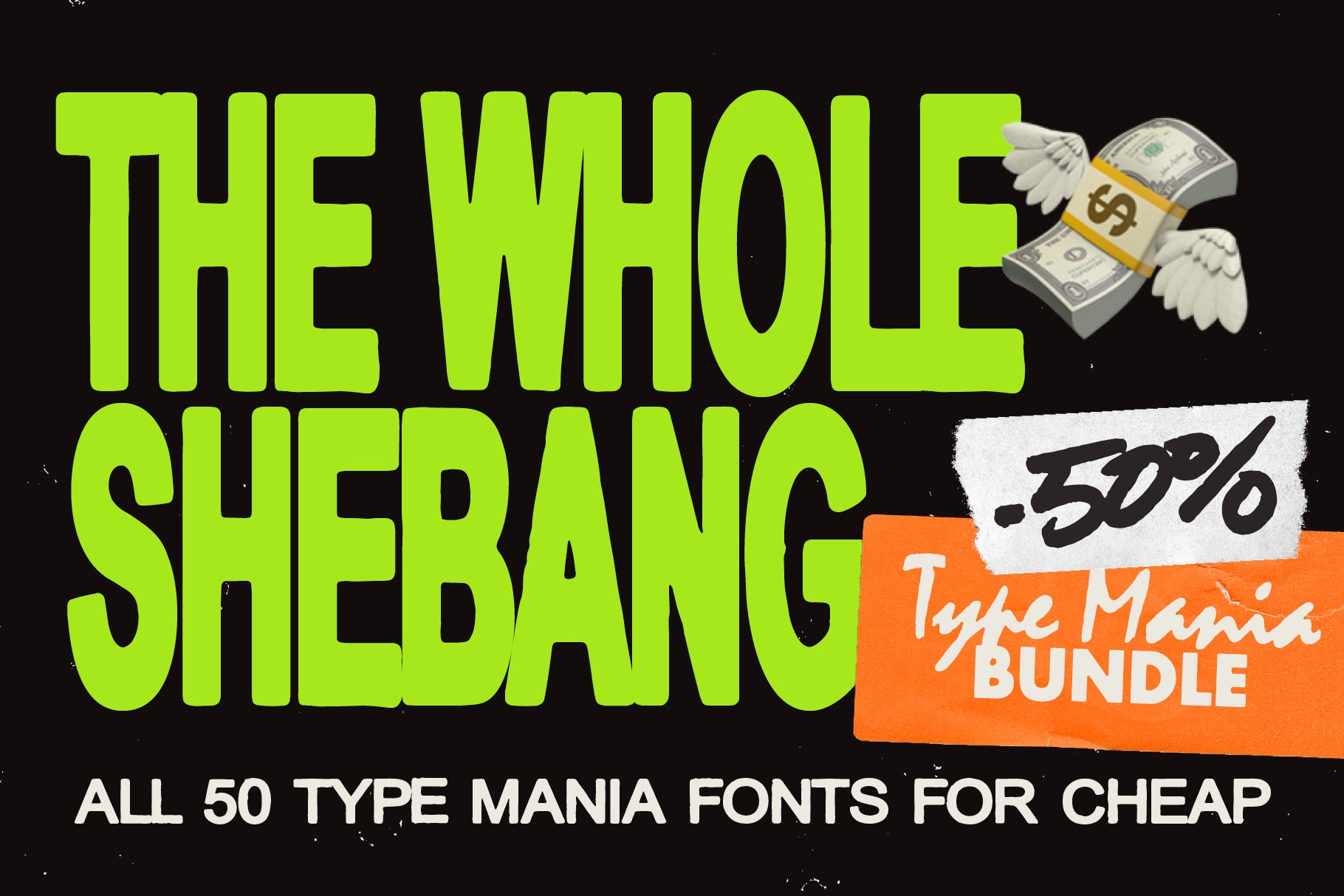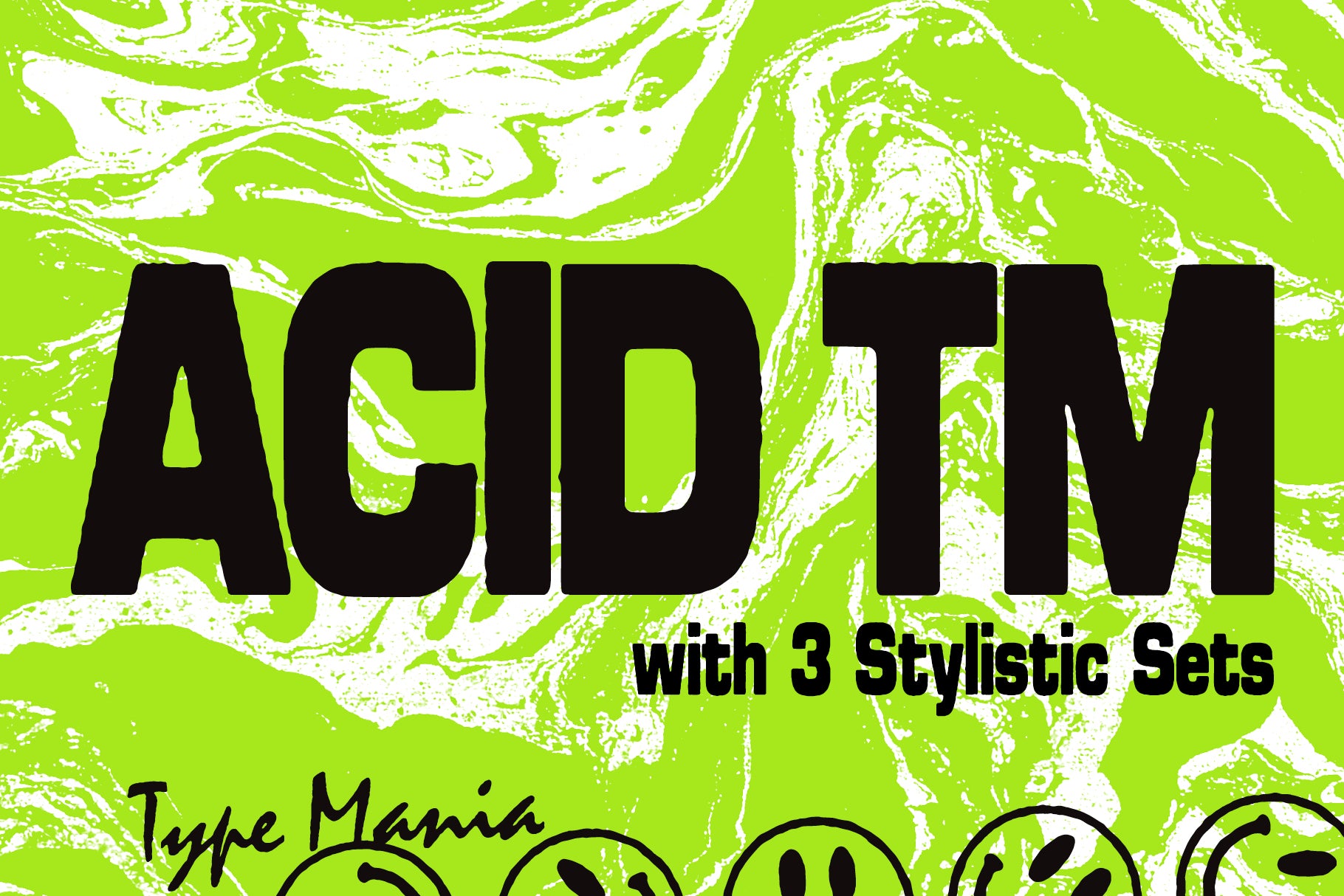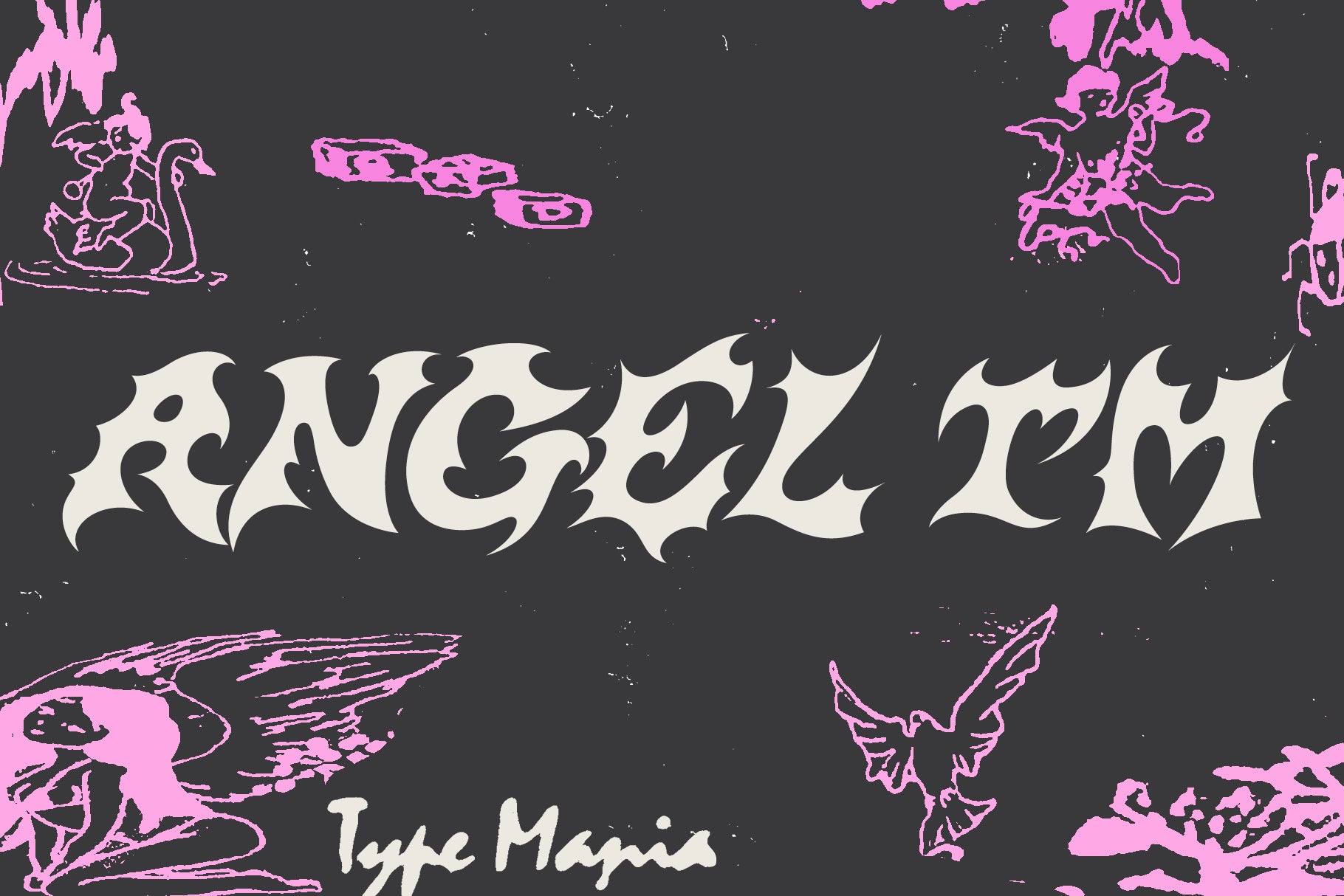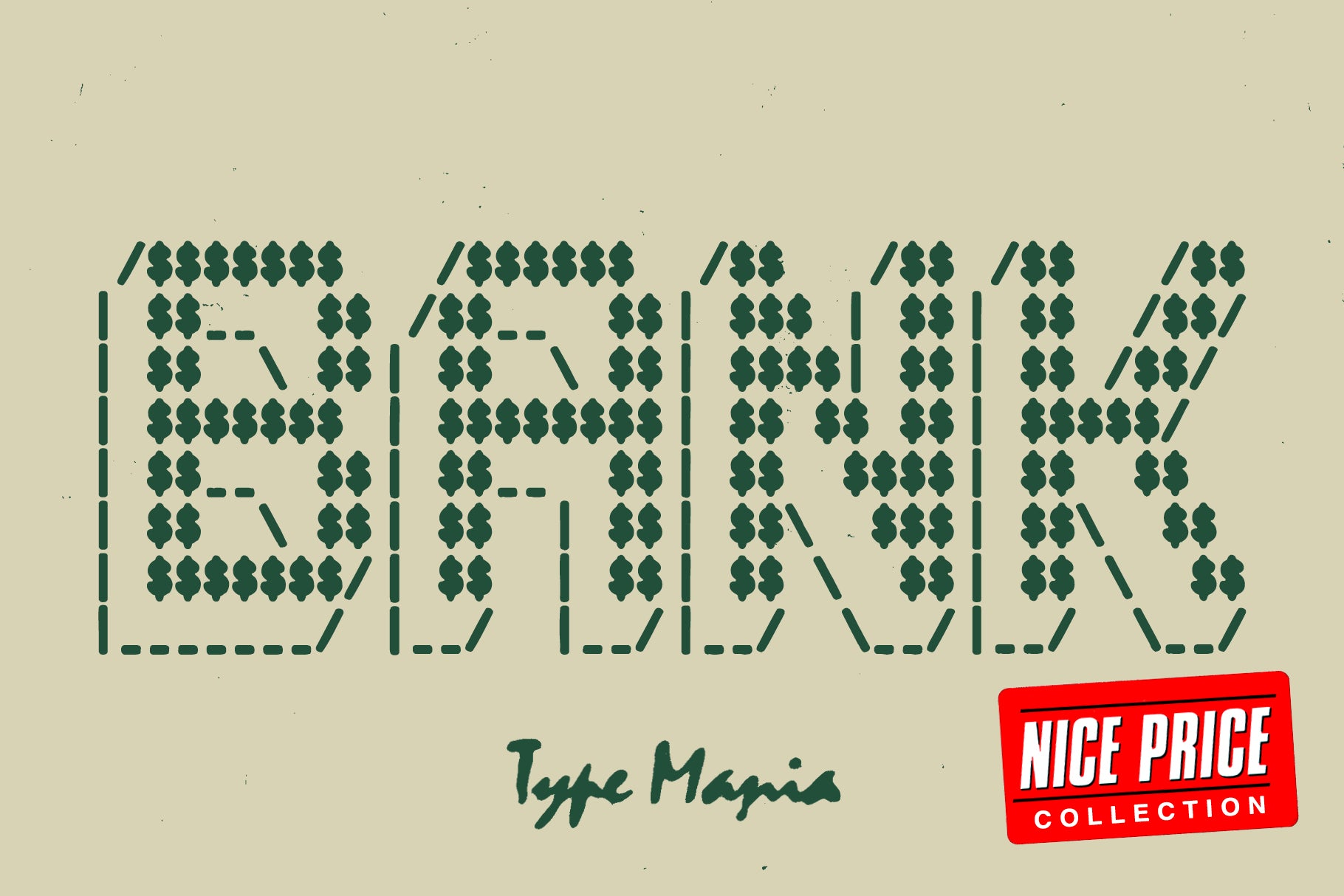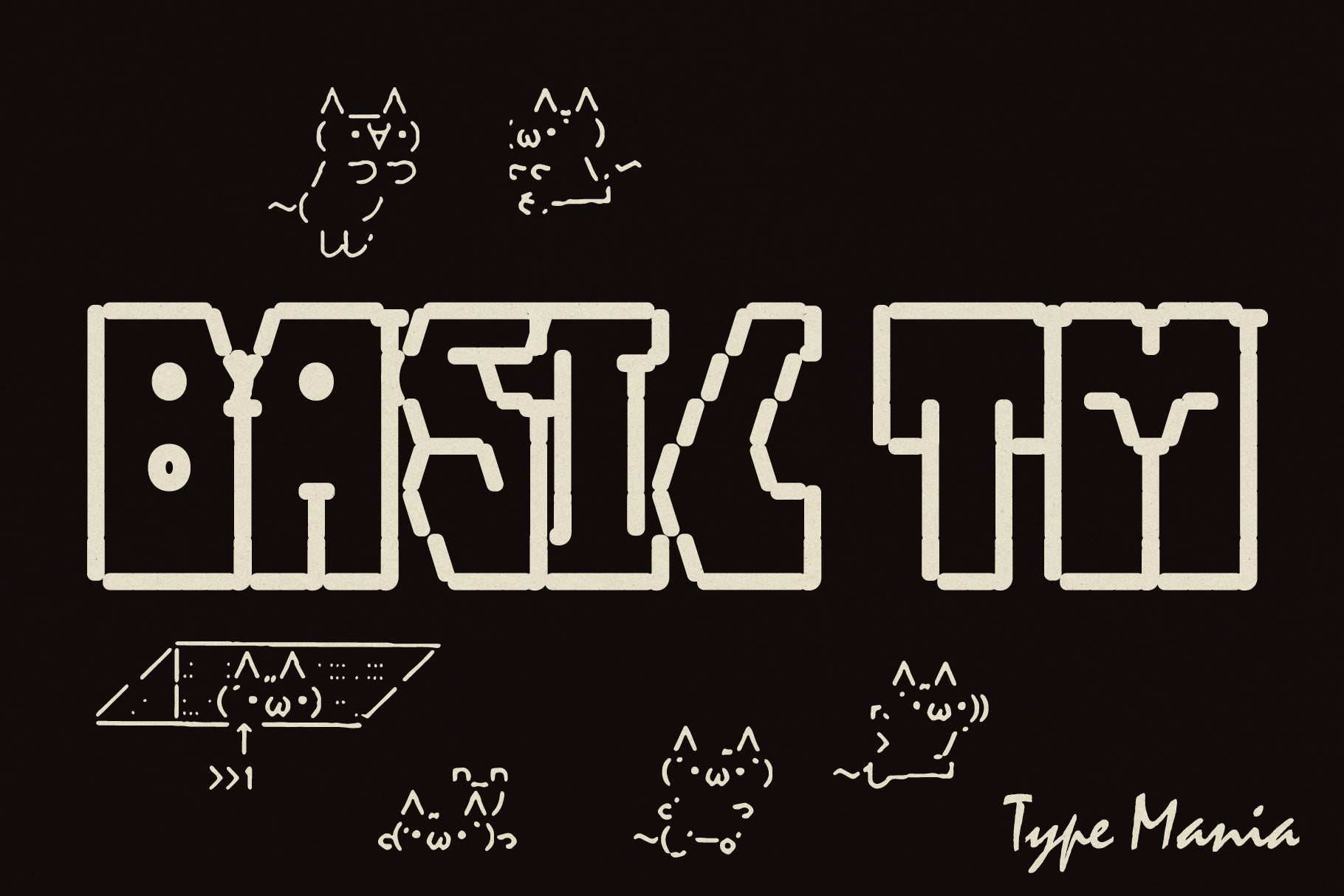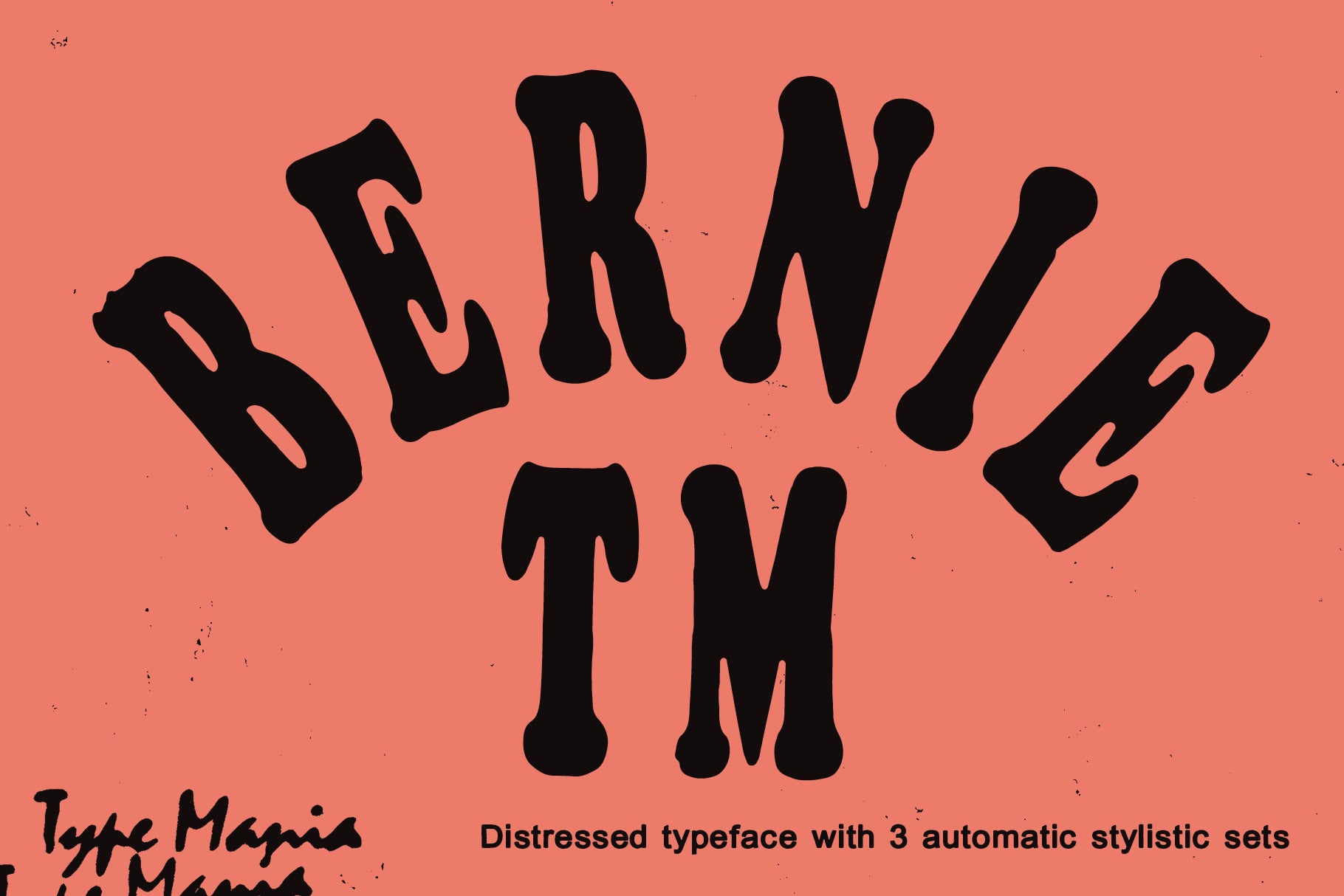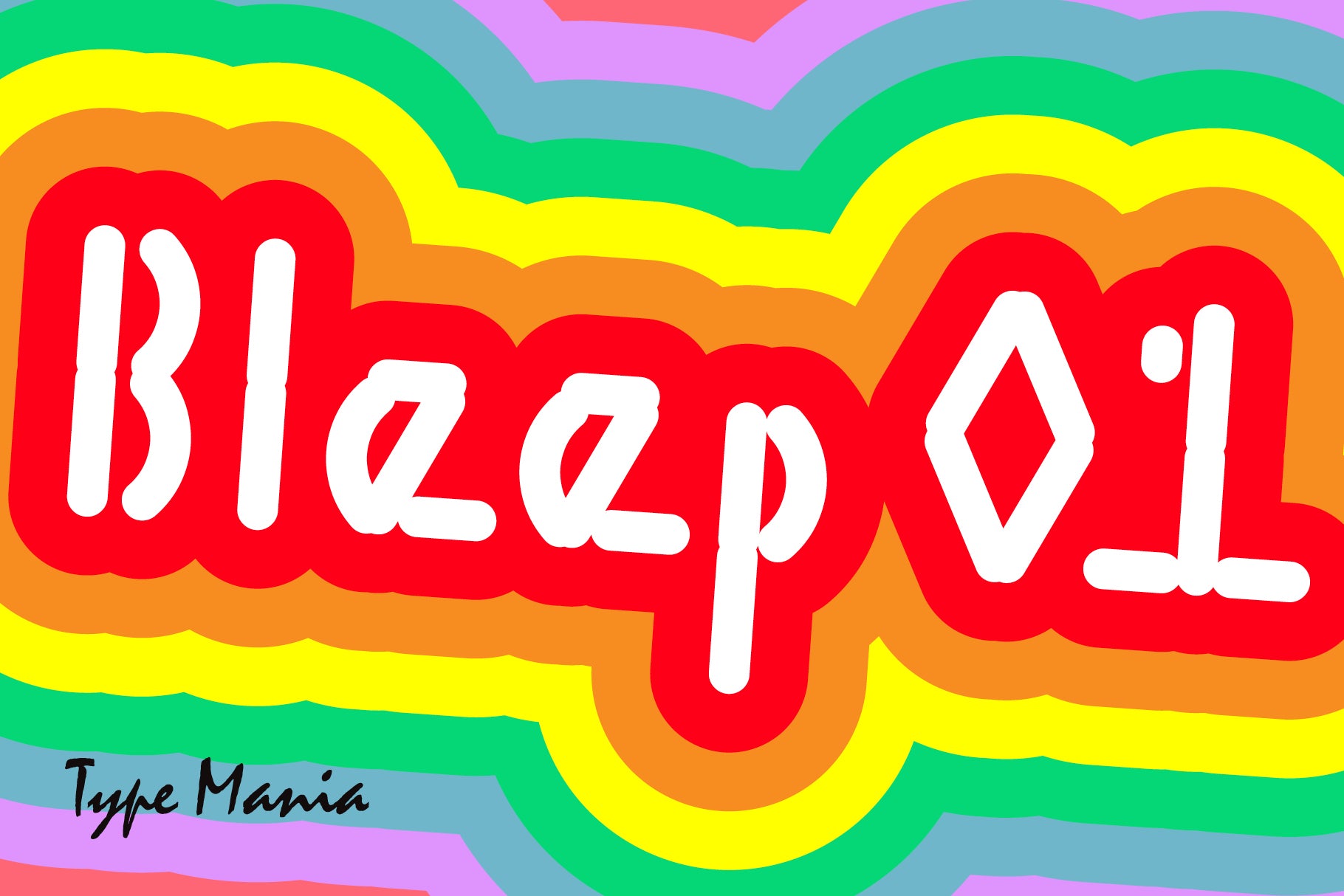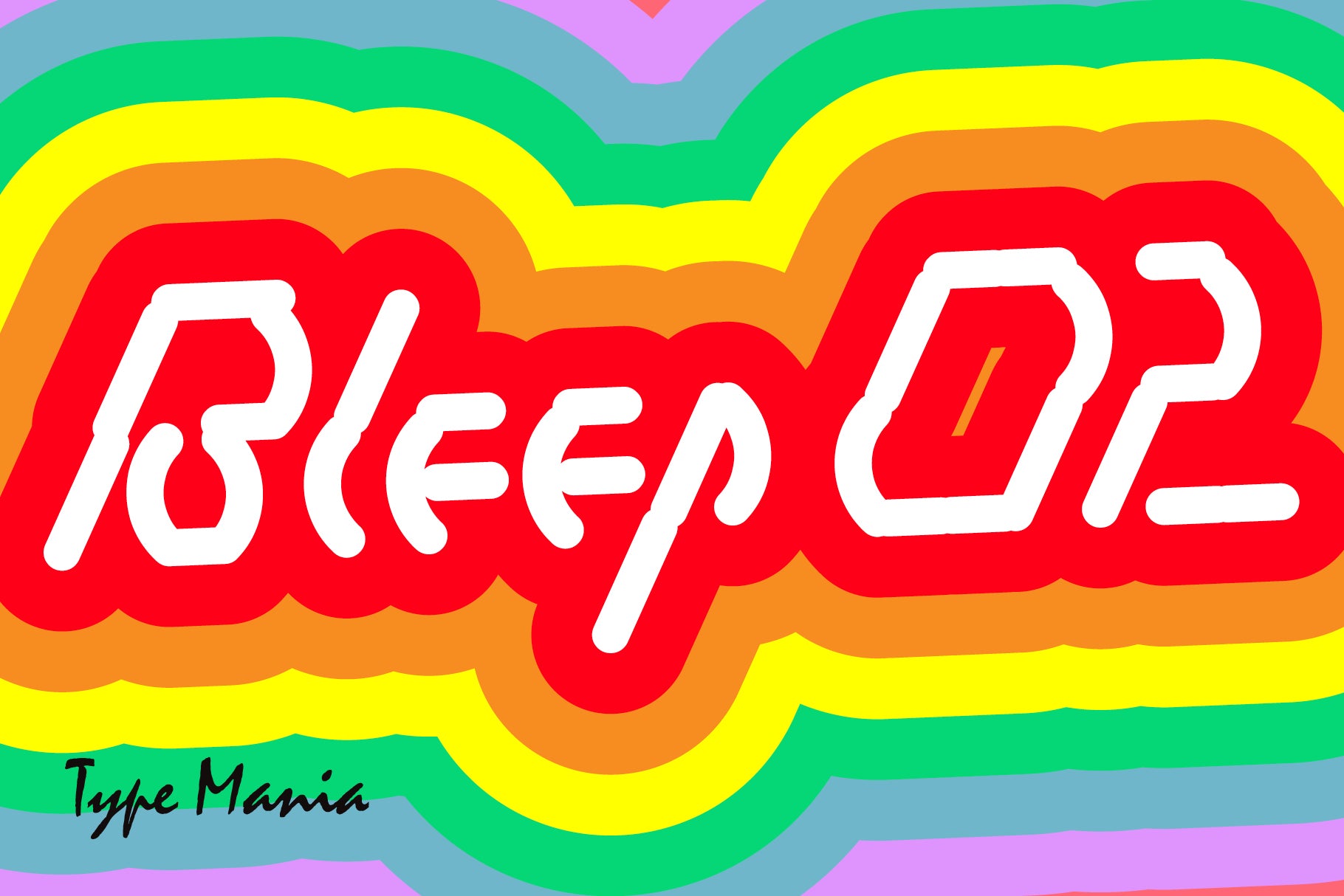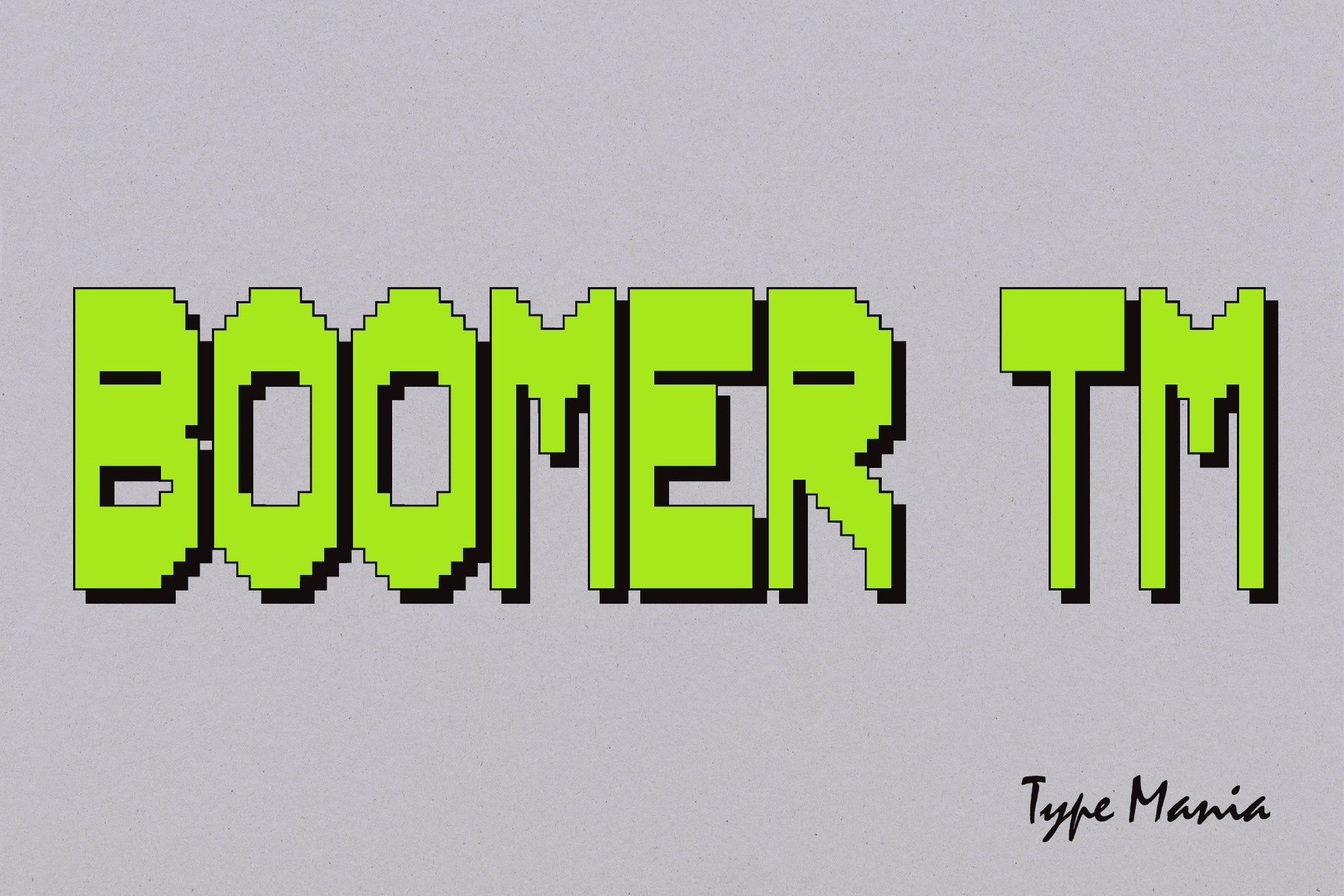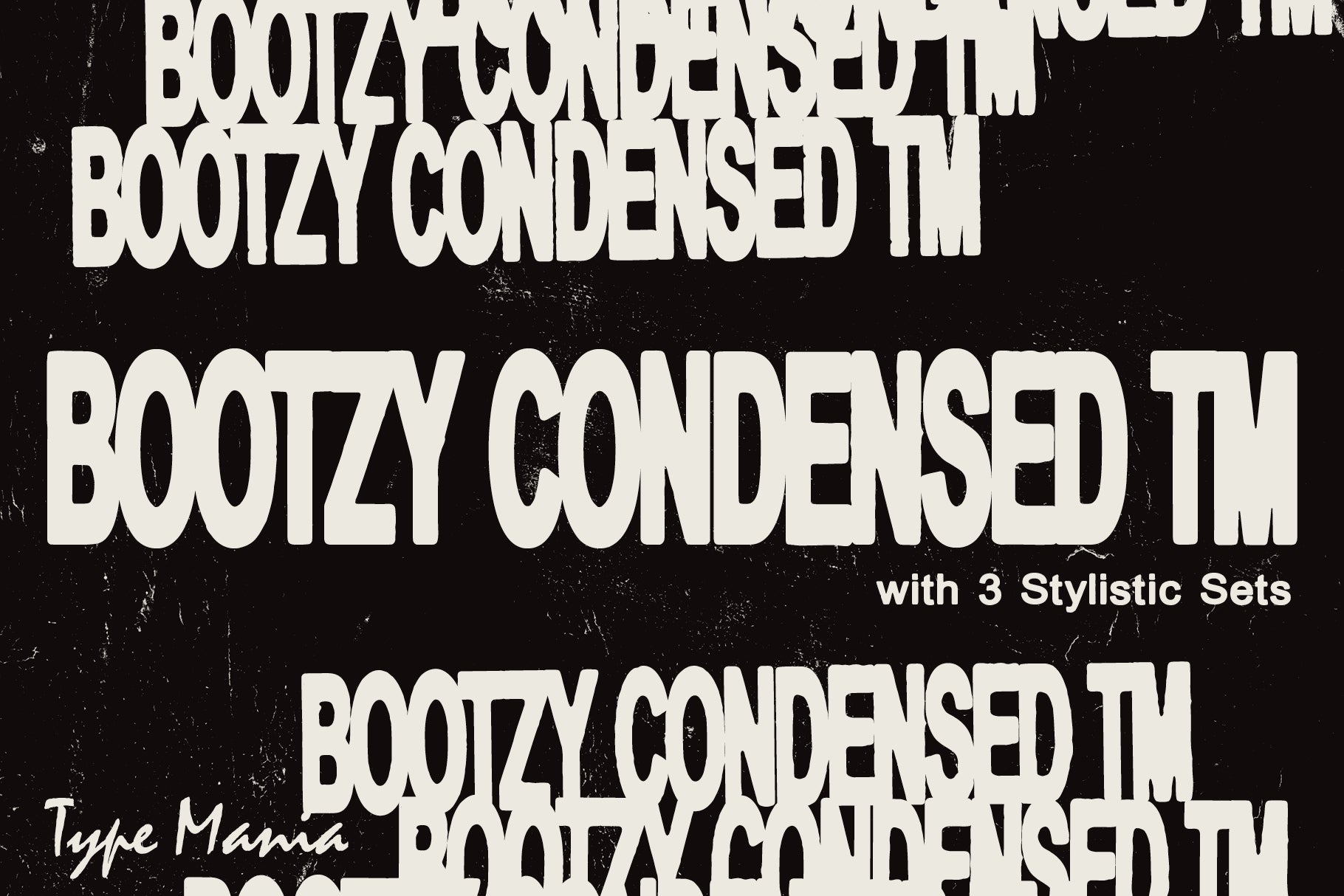
Acid TM is a rugged geometric sans serif. Perfect for your flyer, record cover or t-shirt design. It includes three stylistic sets of all the essential glyphs, which shift automatically to add character and texture.
Angel TM is the capping Y2K tribal font that’s sharper than your favorite butterfly clips 🦋 Whether you're working on logos, apparel, posters or digital art, Angel TM is perfect for making your designs pop with a bit of that early 2000s edge ☆⋆。𖦹°‧★
Bank TM, the font that stays breaded 🤑🤑 Good for flyers, posters, stamped right on the label of a bootleg 12"... Sky's the limit!
Basic TM. This ASCII-inspired display font brings the nostalgia of early computing into the 2020s with a twist. Whether you're designing a flyer for an underground dance party or crafting a quirky advertisement, Basic TM will deliver undeniable style to any project.
Bernie TM 🫡 With three distinct stylistic sets rotating automatically, our font offers versatility, lending each composition its own unique flair with a natural, homegrown appeal. Whether for print or digital, it's guaranteed to cozify any project.
Bleep 01 TM, an experimental typeface that transcends the conventional limits of creativity and innovation 🤖 Whether you are a designer, developer, or digital artist, Bleep 01 TM offers a unique mix of modern aesthetics and retro feels 🤌🤌
Bleep 02 TM brings the same experimental cozy vibes as Bleep 01 TM, but in italic. Whether you are a designer, developer, or digital artist, Bleep 02 TM offers a unique mix of modern aesthetics and cozy feels, perfect for projects that call for a distinctive visual identity 🤌🤌
Boomer TM is our weird & wonderful pixelated font 🚀 Pixel fonts can get funky, too. Feel free to adjust or customize it to better fit your purposes :))
Bootzy TM, a tough sans serif designed to elevate your flyers, album covers, t-shirt designs; what have you. With three stylistic sets, the glyphs shuffle automatically, infusing your design with character and texture.
Bootzy Condensed TM, a rugged display sans serif born from and for the creative underground. Inspired by the DIY ethos of bootlegging, this font is perfect for flyers, zines, and rebellious expressions all over.
Bot TM pulls from the raw charm of early digital type. Rigid, modular, machine-made—it's perfect for your rave revivalist flyer, t-shirt, bootleg 12"... U get the idea 🔊🔊
Brainrot TM – for bad moods and good designs 💆 The meltdown esthete's choice 💅💅
Brut TM – the cozy and cute typeface inspired by the Japanese interior magazines. Whether you're crafting an editorial, poster, or digital content, Brut TM adds a touch of whimsy to every project. Arigato (ᴗ͈ˬᴗ͈)ꕤ.゚🇯🇵
Burial TM, doomy type for our dark times... Burial TM doesn’t speak louder, it just stays longer. GLTA 🕷️
Buzzer TM, our jazzy sans serif that's guaranteed to electrify your text with energy and excitement ⚡😵💫 Good for flyers, posters; all kinds of attention-demanding gigs, really :))
Charmer TM is a homebaked calligraphic font with a personal feel. Good for your bedroom pop band just about to make it big...
Cherry TM, inspired by the esteemed party island, this font adds a bold edge to any project. Equally at home on a flyer for a dance party or a social media deliverable, it brings the spirit of neon-lit nights and piping hot parties to your creations 💋
Chrome TM – a bold, urban typeface inspired by graffiti lettering. Good for branding, posters, album covers, apparel... what have you. Give it a try and see if it works for your project.
City Boy TM. Inspired by the playful typography of Japanese fashion magazines, this bubbly font is your go-to choice for adding a touch of Tokyo chic to your designs. City Boy TM delivers style with a smile. Domo arigato ʃƪ˘ﻬ˘) ♡´
Crash TM – Elevate your projects with a rugged typeface that automatically rotates through three distinct stylistic sets in a 1-2-3 pattern, offering a fresh, robust look with every change 😮💨
Cube TM blends rigid forms with unexpected rhythm 🌀 It uses blunt shapes based on brutalism, with variation introduced through three alternating stylistic sets 🫡
Cutie TM is a cute (daa) squiqqly font inspired by the internet. As a part of Type Mania's Nice Price collection, it won't break the bank either 😎
Dazed TM bends the rules. With its bouncy, freeform feel, it's perfect for offbeat branding or editorial situations. Three stylistic sets rotate automatically when Contextual Alternates is turned on, ensuring every word is fluid and unpredictable. Get dizzy 😵💫
Delegate TM. Whether you're crafting a flyer for a house party or designing a brand identity; whenever you need a cozy, distressed typeface that delivers organic vibes damn near automatic – there's Delegate TM.
Device TM – unapologetically bold, fiercely quirky. With its edgy demeanor and unwavering confidence, Device TM is perfecto for any flyer, poster, t-shirt graphic; what have U.
Dot Gain TM. Inspired by the gentle imperfections of yesteryears' printing presses, Dot Gain TM captures the essence of a bygone era with its scruffy appearance, yet remains unmistakably contemporary, offering a nod to the past with a modern twist (–‿♥)
Dreamer TM, our emotive serif font channeling the Y2K aesthetics. Whether you're designing a poster, creating a logo, or adding a nostalgic touch to your branding, Dreamer TM lends an edgy twist to your project ⋆𐦍.ೃ࿔*:・
Dummy TM is your go-to when it comes to heavy distressed type. The font includes 3 unique stylistic sets that rotate automatically as you type making the designer's job that much easier. Enjoy, you big dummy!
Duster TM adds a gritty vibe to any project, be it a flyer for an underground rave event or social media campaign. With 3 stylistic sets you can create dynamic layouts at e-z.
Edgelord TM blends medieval typography with 8-bit aesthetics, creating a typeface that stands out. Good for branding, editorial, a flyer for that lo-fi house party at yo mama's basement... Give it a try ⚔️
Fantasia TM is a script font treading the tightrope between edge and elegance. Its curves feature a worn texture, and the rotating stylistic sets guarantee an organic look & feel ‧₊˚ ☁️⋅♡𓂃 ࣪ ִֶָ☾.
Frankly TM. With three stylistic sets rotating automatically (when contextual alternates are turned on), the typeface naturally mimics the subtle imperfections of misaligned offset printing.
Goblin TM 🧌 Whether you’re conjuring up album art, concert posters, or crafting a wicked logo, Goblin TM delivers with its bold, jagged lines and unholy curves.
Gorpcore TM, the typeface that captures the rugged charm and functional elegance of gorpcore aesthetics. Good for flyers, posters, social media campaigns, branding – what have u.
Gosh TM. A soulful typeface merging raw beauty with cutting-edge design features. Not only does this display font command attention visually, but it also offers 3 interchangeable stylistic sets, making the designers job that much easier.
Hiker TM is your go-to for unique and unconventional handwriting vibes. Operating on the more underground end of the spectrum, it's good for flyers, posters, branding, and campaigns – provided the client fits the aesthetic.
Loser TM – the scribbled, bubbly font from Type Mania. Whether you’re crafting social media graphics, quirky logos, or personal branding, this font brings a whimsical touch with its bold, rounded letters and handwritten feel.
Matrix TM is a display font inspired by the thermal printers. Includes two distinct stylistic sets that automatically shuffle as you type, mimicing real-world print degradation.
Mazzy TM – the script channeling the underground spirit of the 80s and 90s alternative scene. Whether you're designing merchandise or event flyers, Mazzy TM is guaranteed to deliver.
Metallika TM adapts to your creative vision with ease, whether you're summoning the spirits of the abyss or guiding souls to higher planes.
Mushpit TM – the grubby marker font from Type Mania. Bold without trying too hard, rough but intentional. Designed for those who trust instinct over perfection.
Oddball TM, the blob-y handwritten font delivering hard on the 90s vibes. Perfectly imperfect, just like your favorite vintage band t-shirt. Get in where u fit in.
Offset TM. With 3145 lines of code it's a dynamic typeface that blends rugged aesthetics with innovative design features.
Peace TM, a handwritten typeface inspired by the underground comics of the era. The font is programmed to automatically shift between the stylistic sets, making your layouts dynamic and interesting damn near automatic...
Sauce TM flows smooth but hits hard, with just a hint of provolone in the mix. Toggle on Contextual Alternates to cycle between two stylistic sets as you type 👌
Stoner TM is a textured serif with subtly eroded forms for that worn-out feel—delivering realness without sacrificing legibility.
Telefax TM, our cheap and cheerful distressed typeface inspired by the high-tech of yesteryears. Perfect for injecting your designs with a touch of nostalgic charm from vintage communication 🖨️
Typewriter TM breathes new life into the classic distressed typewriter aesthetic with 3 stylistic sets rotating automatically.
Weirdo TM. Unpredictable, unconventional, and unruly – this handwritten font seasons you design with that extra sauce.
Zine TM. Step back in time with our typewriter font with a 🌀twist🌀. Embrace the past, celebrate the present, and make your mark with Zine TM 📝